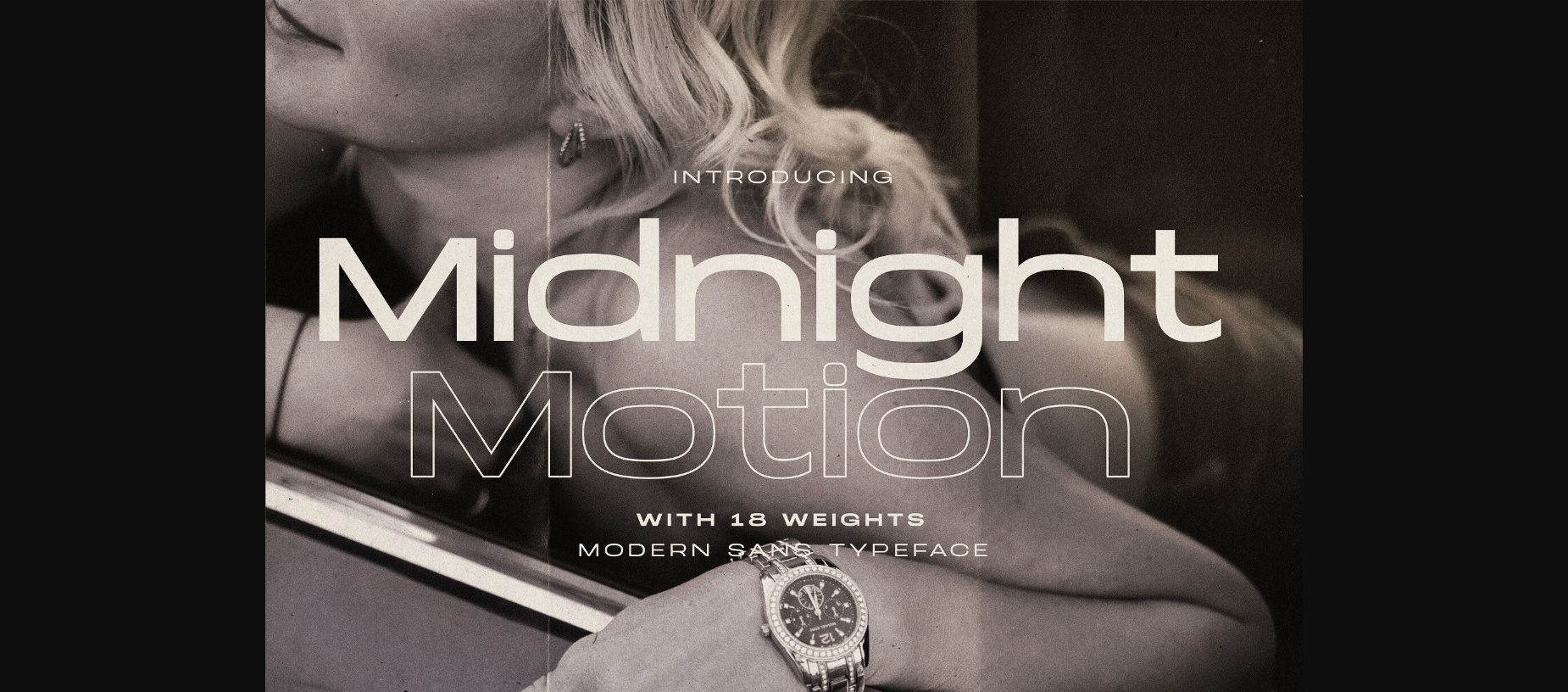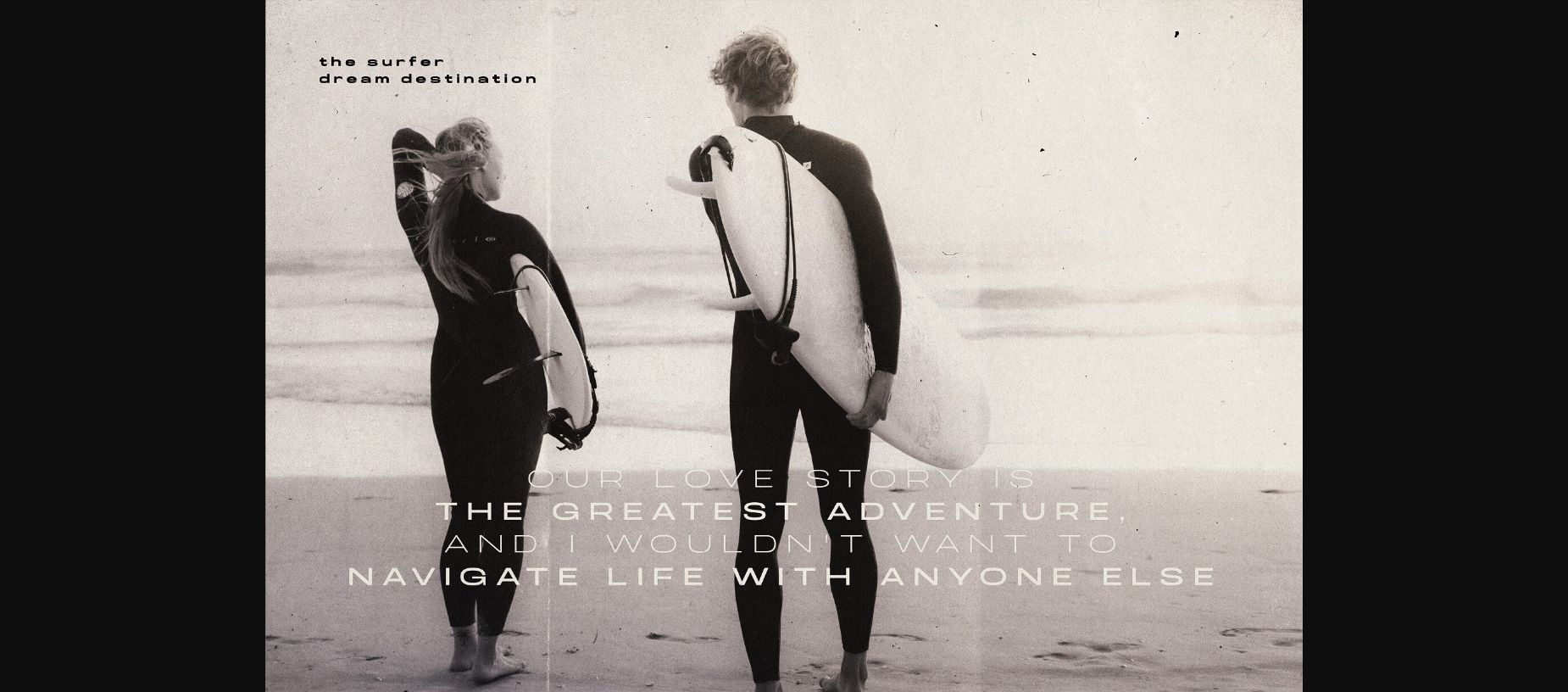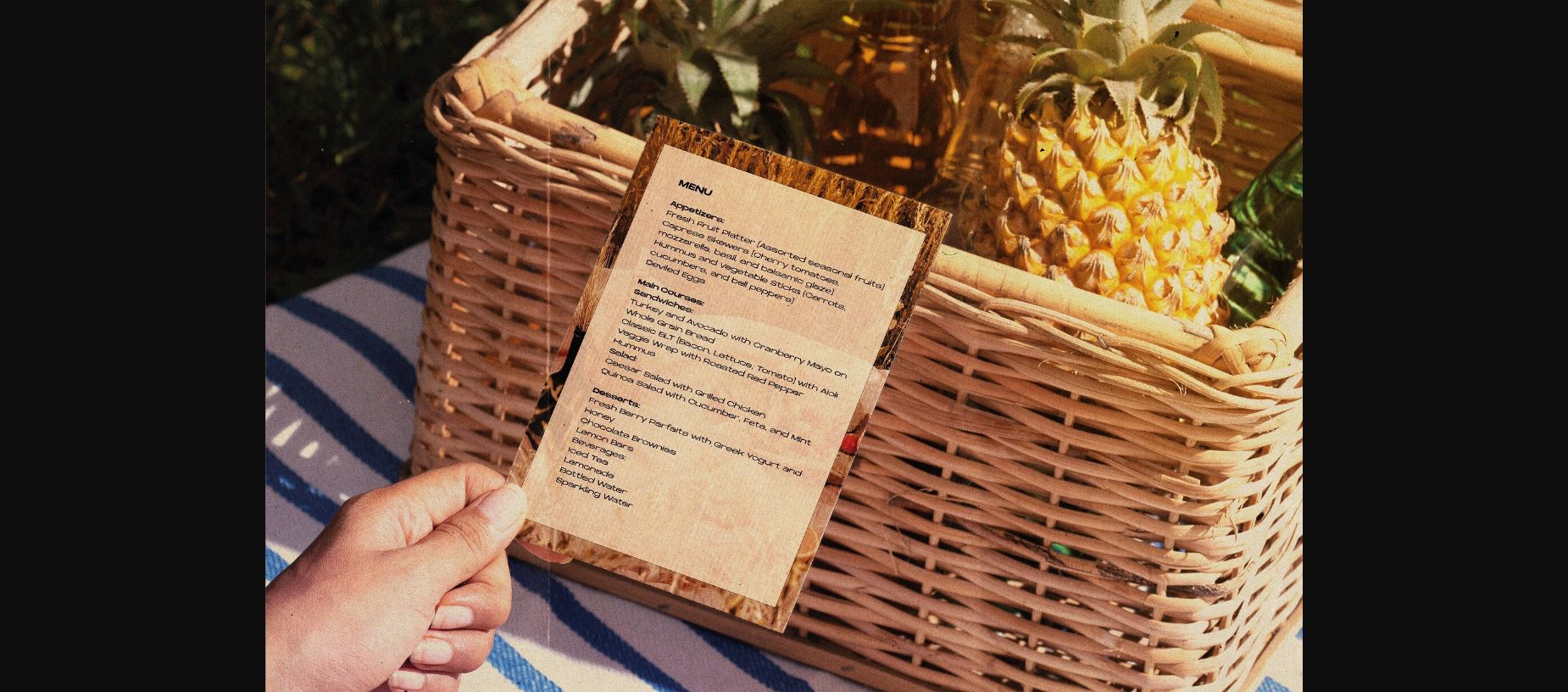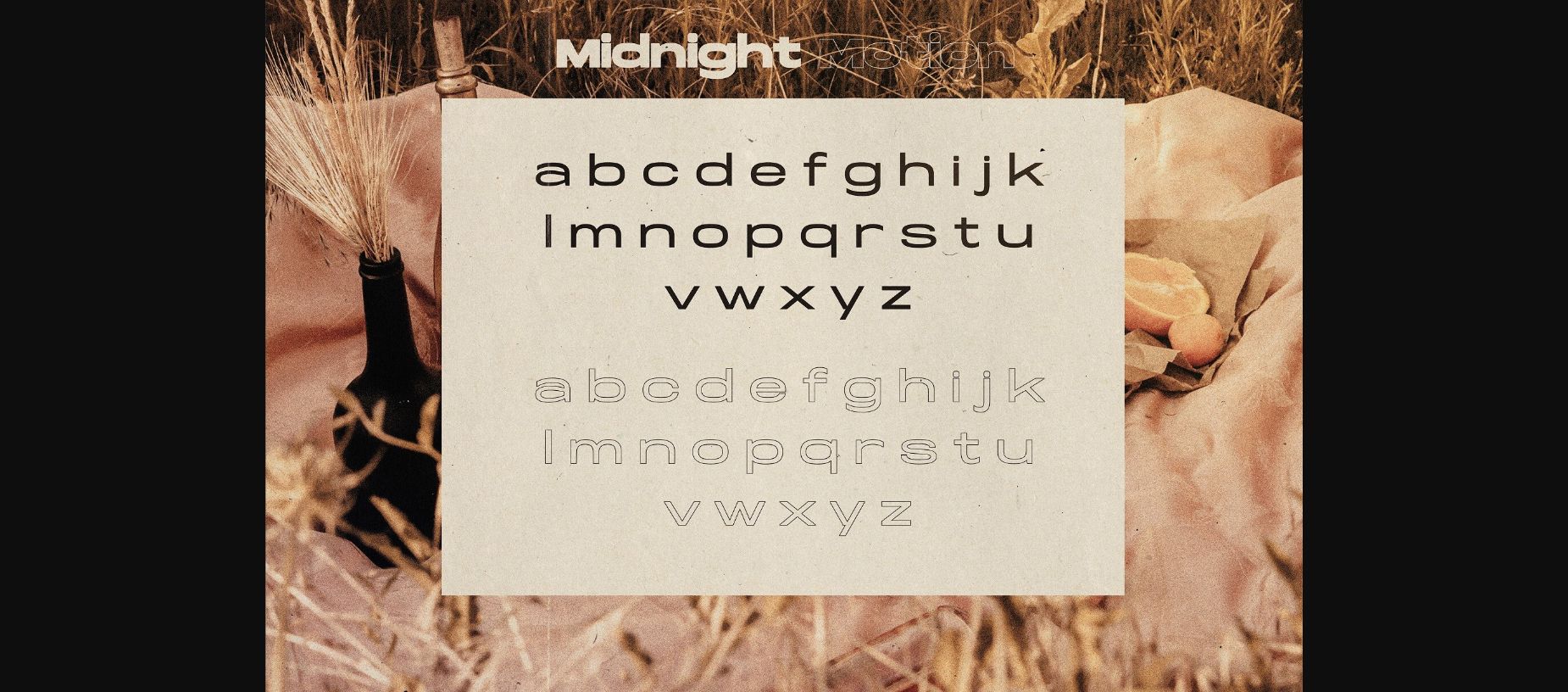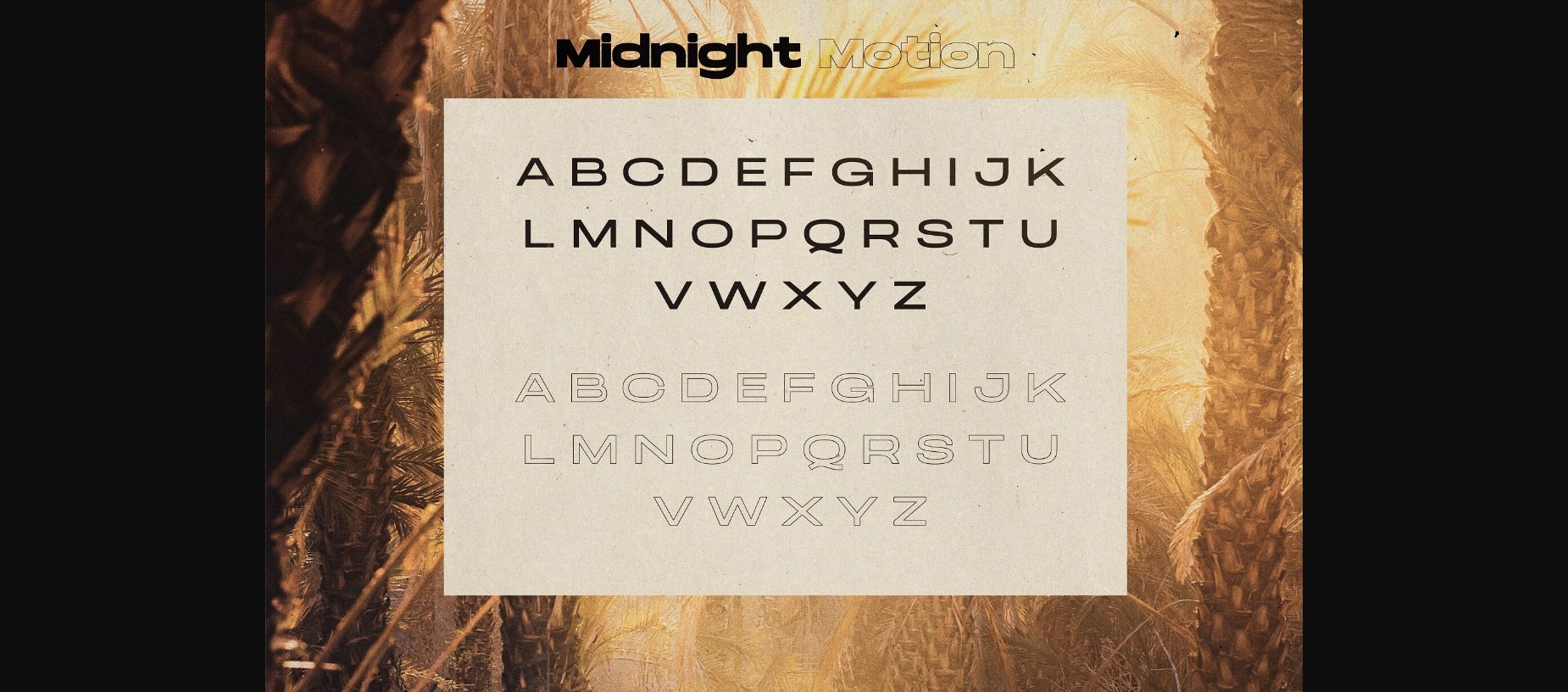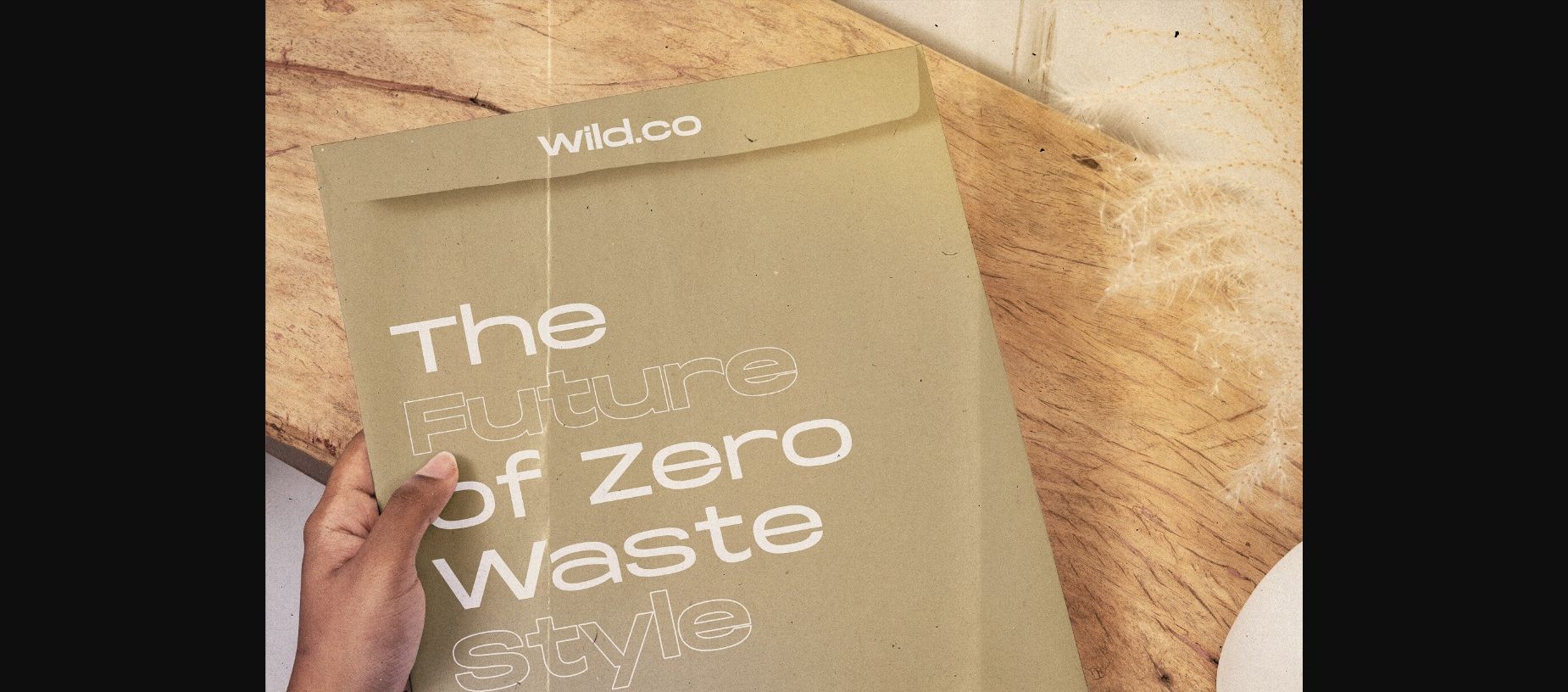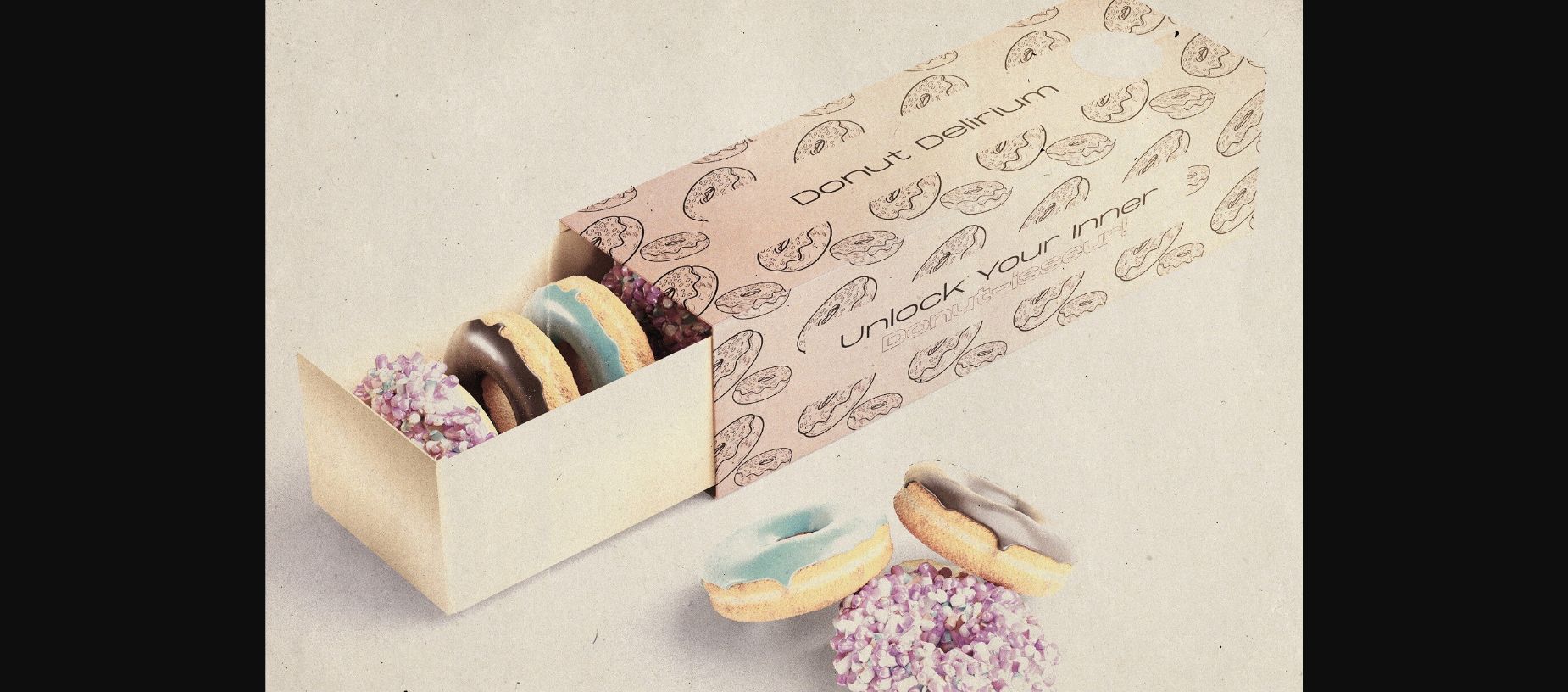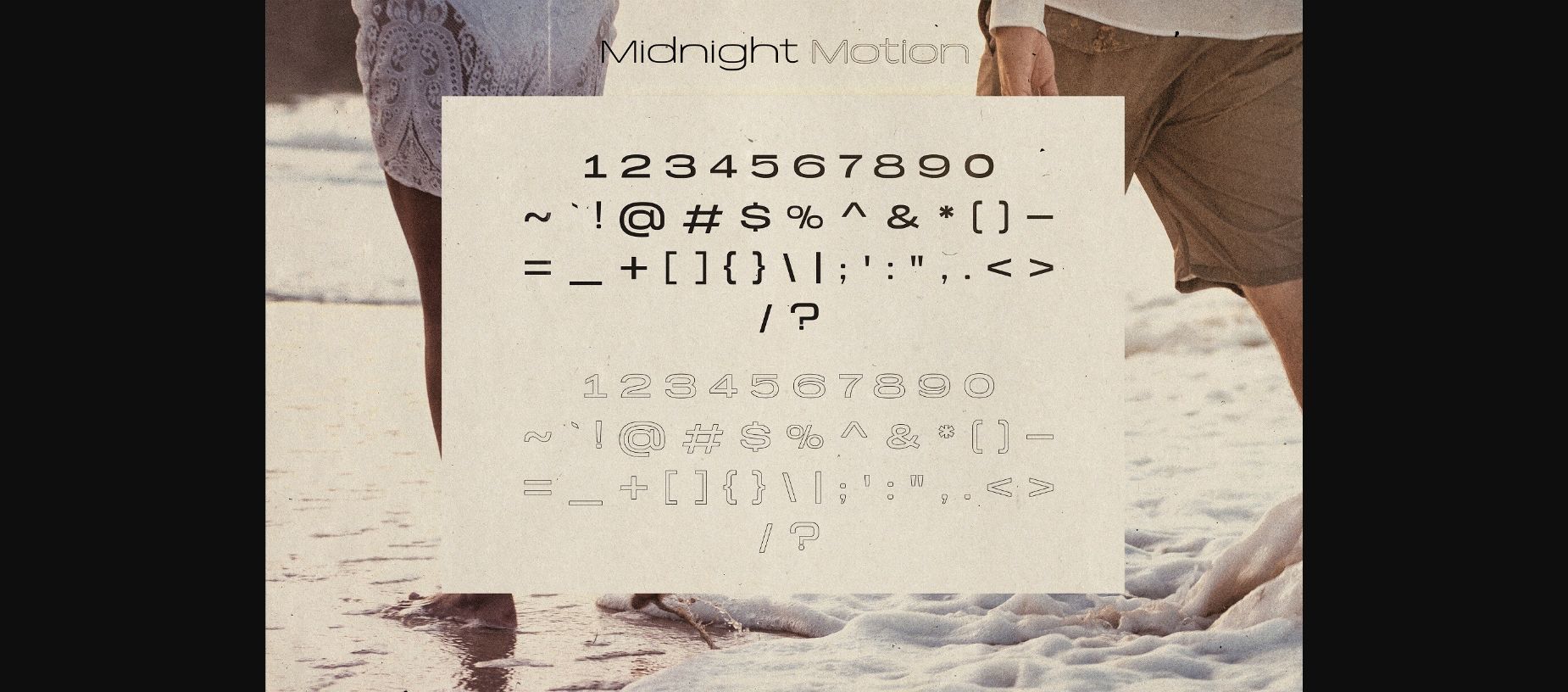
Midnight Motion Font
About Midnight Motion Font
Introducing Midnight Motion, the epitome of modern elegance fused seamlessly with undeniable functionality. A contemporary sans-serif typeface, Midnight Motion sweeps the canvas with its clean, sleek lines, offering clarity and sophistication in every stroke.
This font embodies the essence of the present-day design ethos while also evoking the quiet allure of a city skyline at dusk. The balance achieved in its construction ensures legibility without compromising on style, making it an essential tool for designers looking to blend aesthetic allure with practical purpose.
Midnight Motion isn’t just a typeface; it’s a statement. Its simplicity resonates with minimalistic themes, and its versatility shines in an array of projects—be it on digital platforms, in print, or branded collateral. Perfect for professionals aiming for a polished finish or creatives desiring a touch of modern flair, this font is destined to leave an indelible mark.
Embrace the future of typography with Midnight Motion, and let your designs move seamlessly from dawn to the enchanting embrace of the night.